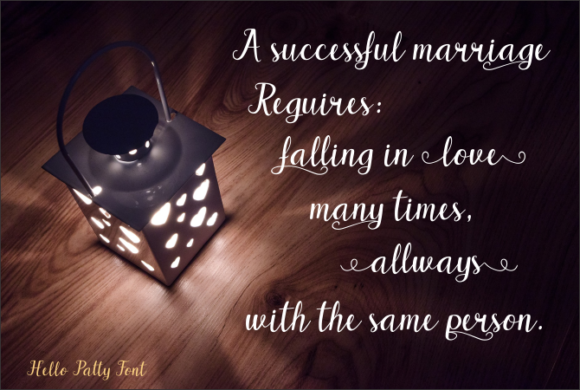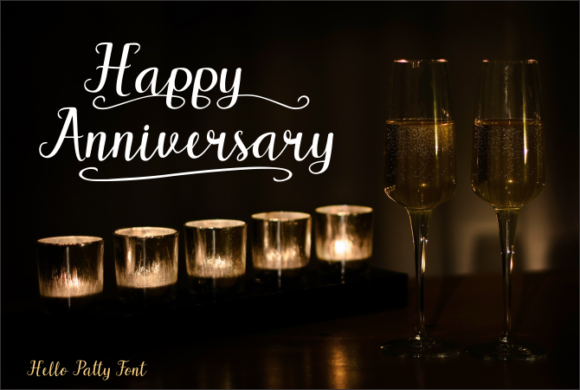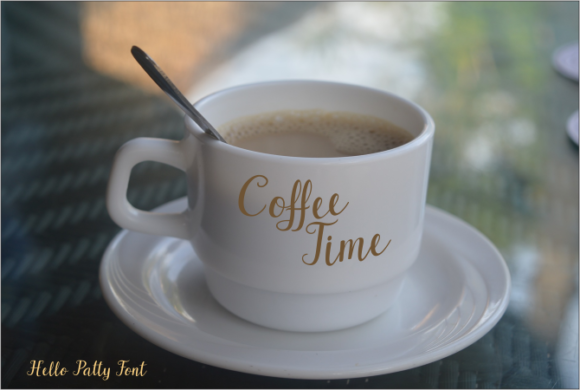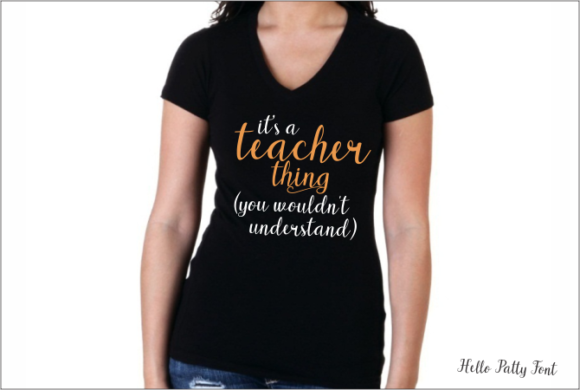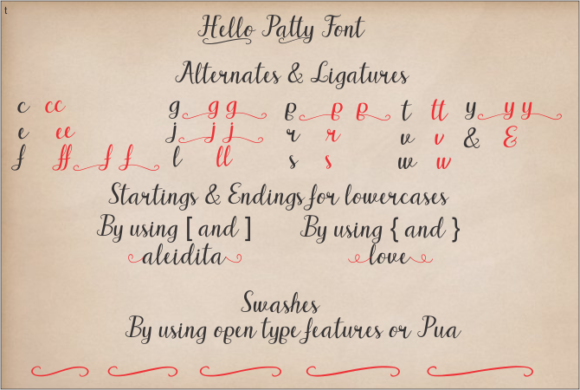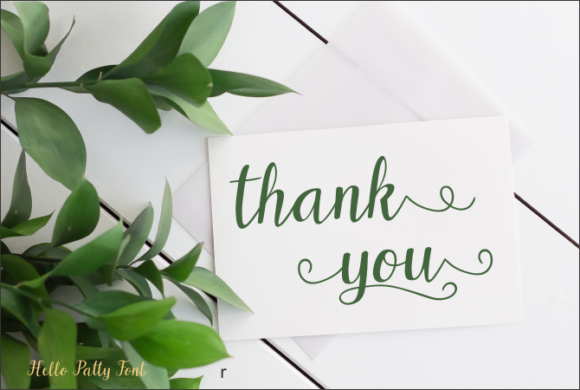
Introduction to Hello Patty Font
The Hello Patty is a modern handwritten typeface with elegant swirls.
It can be used for every design that needs a elegant typeface .
Key Features of Hello Patty Font